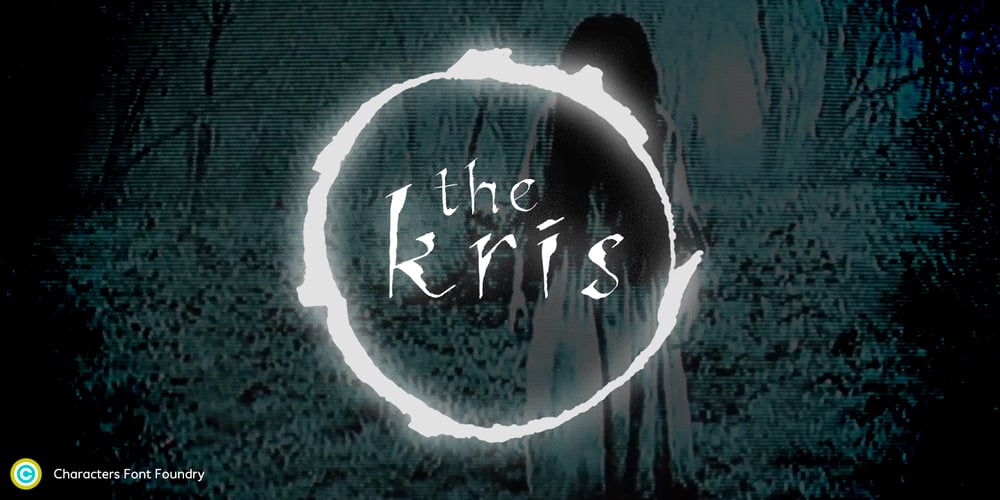
Kris
Kris font
Kris Font Family was designed by René Verkaart and published by Characters Font Foundry. Kris contains 1 styles and family package options. Kris is a powerful typeface based on humanistic minuscule with a touch of Uncial script. An alphabet with an unusual appearance. It is based on the paradigm of classical handwriting. Kris is handwritten with a broad nib pen and ordinary black ink. The somewhat fanciful shapes are created by lifting the pen randomly left and right. This causes unpredictable frayed edges that make the typeface exciting. It bursts with character and is very versatile. Kris is written by the Dutch calligraphy artist Corrie Smetsers. Corrie threw all basic characters in a plastic bag and René Verkaart built the typeface and created all remaining characters. “Most special about this project was collaborating with Corrie. She’s an expert in handwriting and has developed writing systems for the educational sector for decades”, René says.